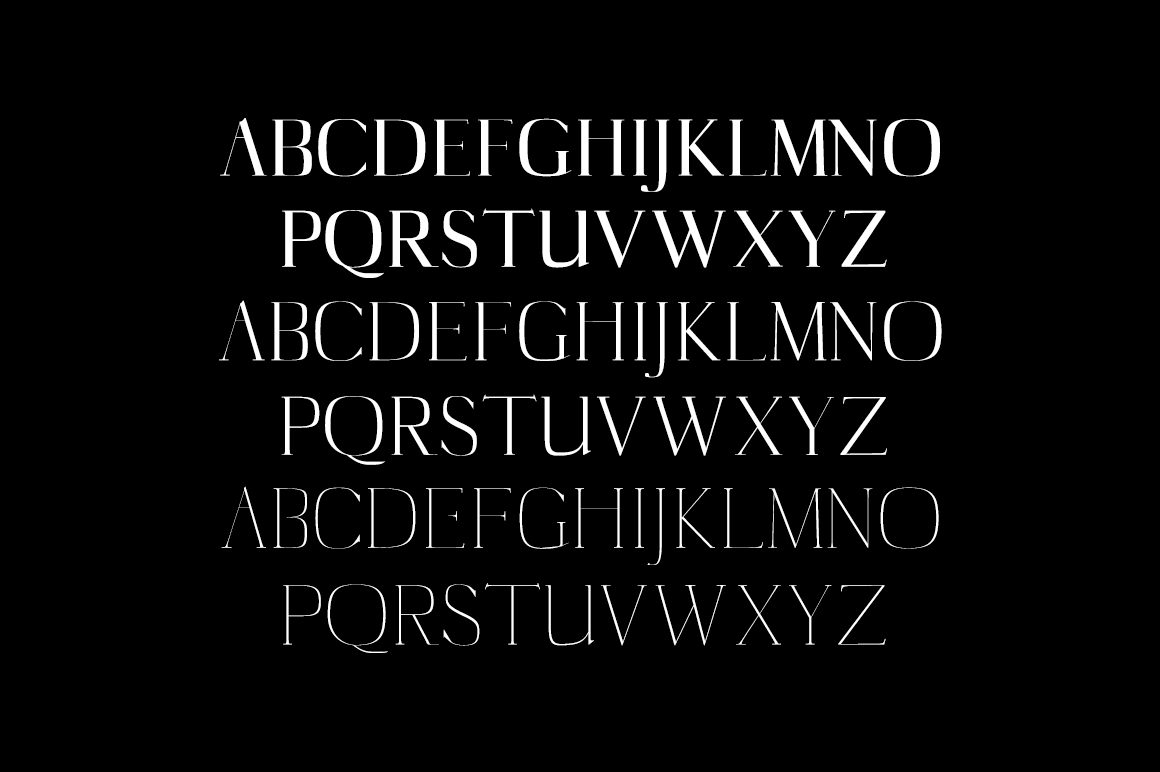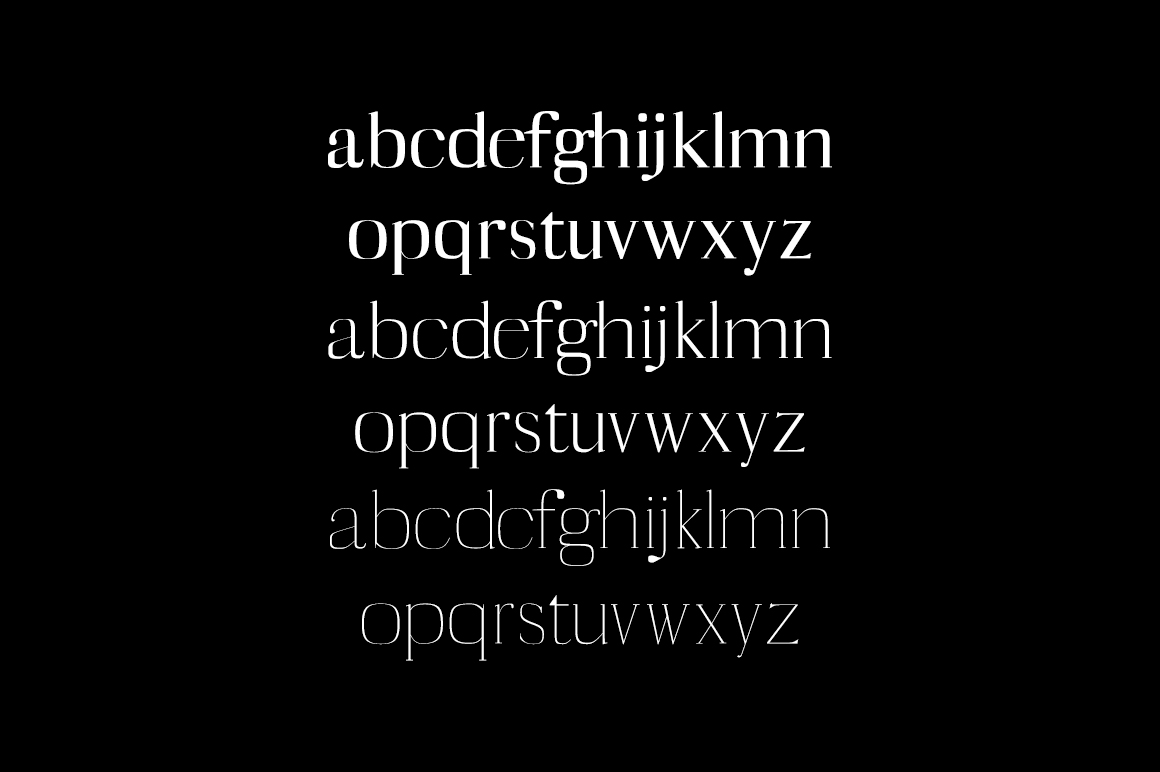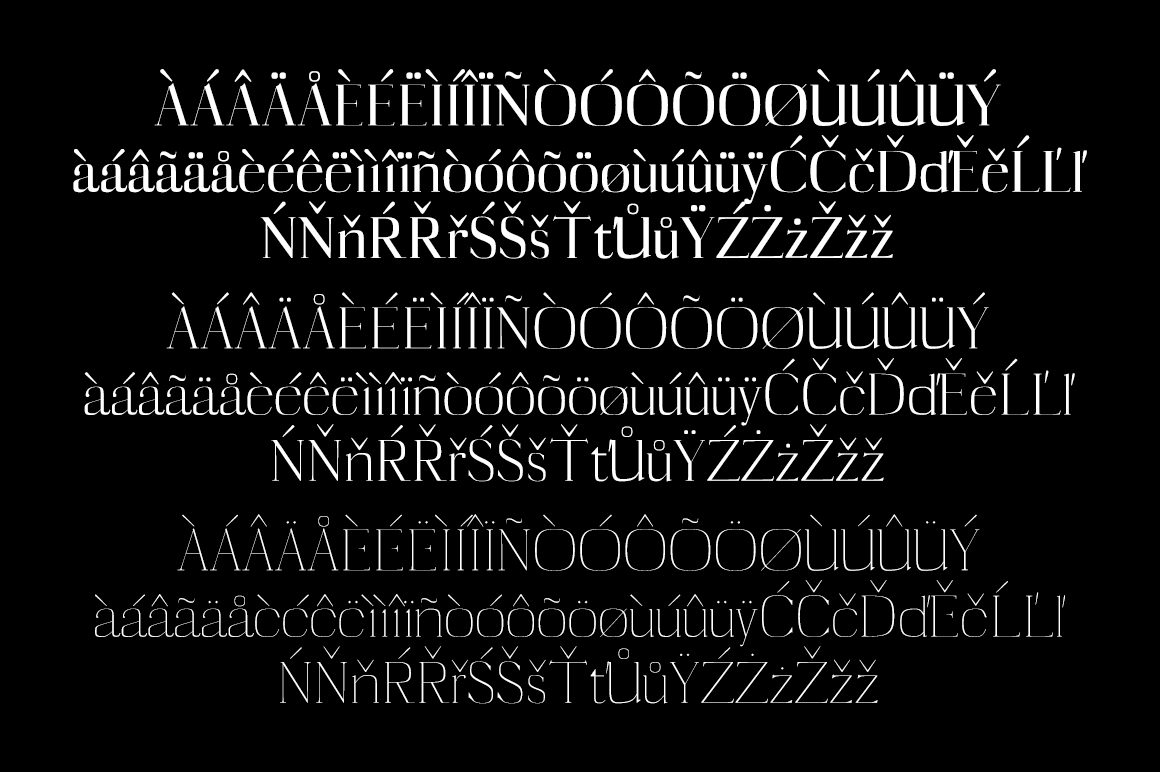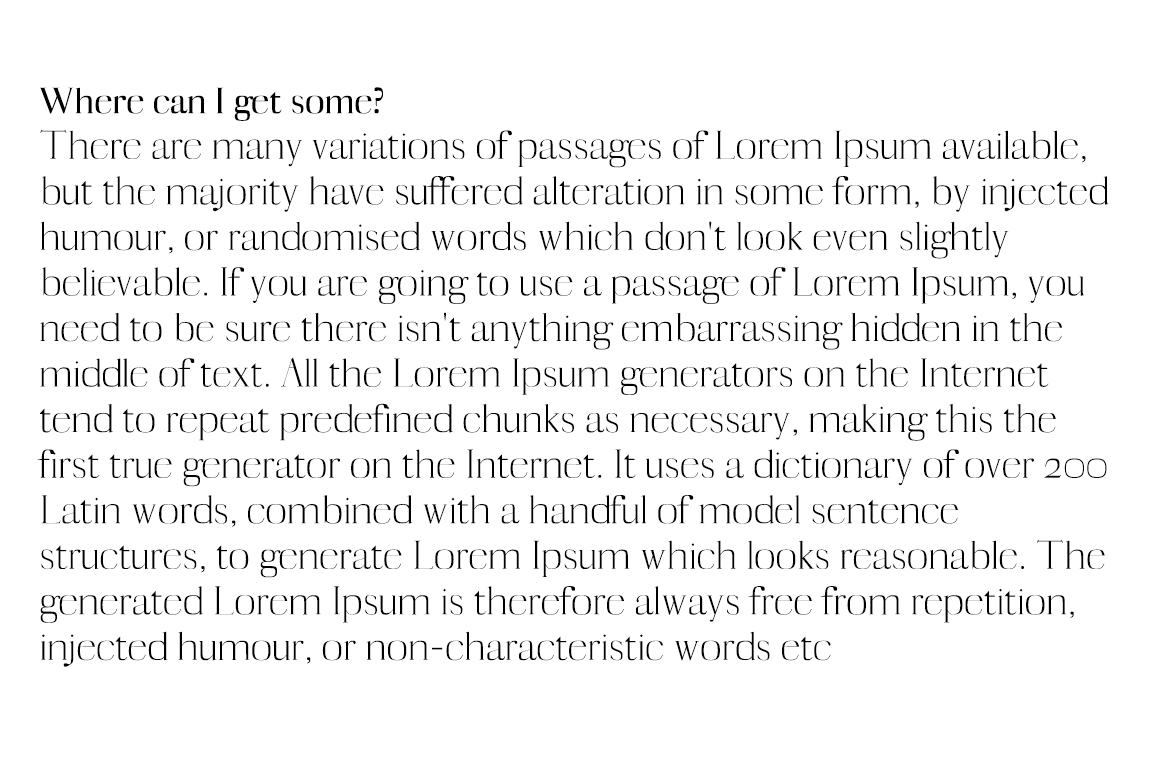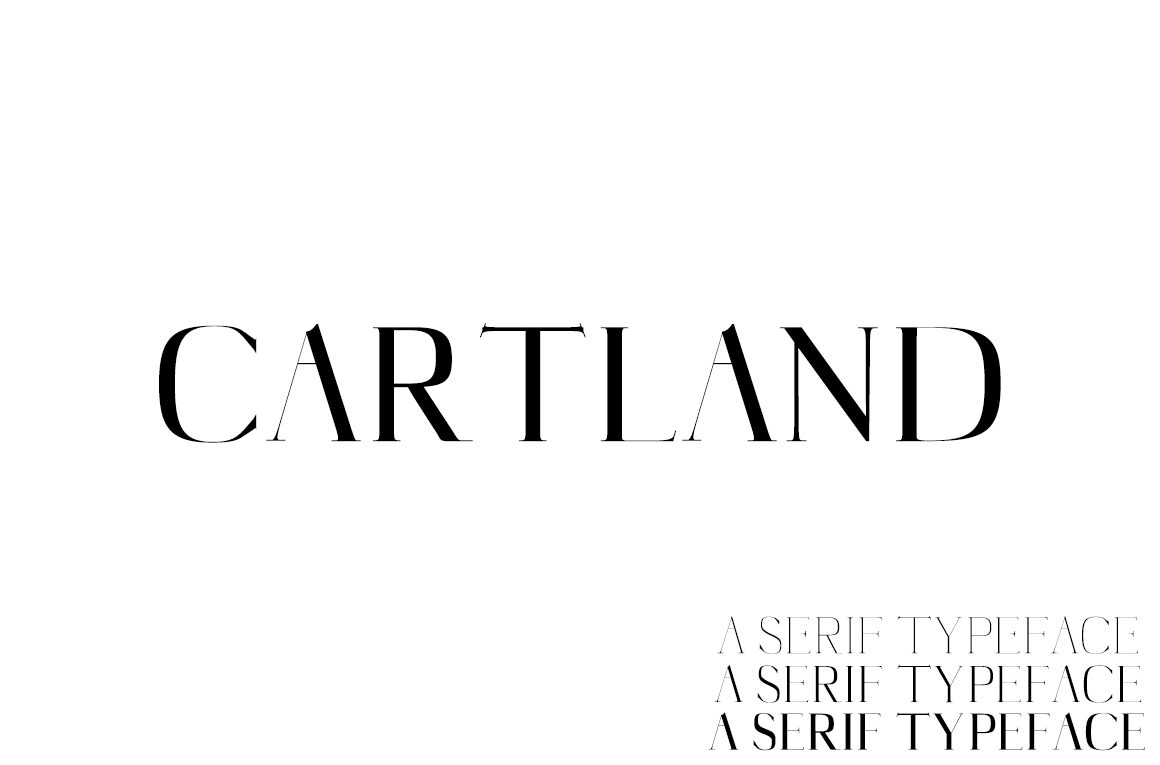
Introducing Cartland Font: Elevate Your Designs with Modern Elegance
In the world of typography, fonts play a crucial role in conveying the tone and aesthetic of a design. For designers and crafters seeking a modern yet classy look, Cartland Font is an exceptional choice. This stunning modern serif font boasts high contrast strokes in every character, making it perfect for projects that demand a touch of sophistication and contemporary flair.
The Cartland Font Advantage
Cartland is not just another serif font; it’s a masterpiece of modern typography. Its high contrast strokes give each character a unique personality, setting it apart from more traditional serif fonts. This distinctive feature allows designers to add a level of elegance and refinement to their work, making it ideal for a wide range of applications, from luxury branding to high-end packaging, and even editorial design.
Key Features of Cartland Font
- Modern Serif Design: Cartland’s sleek and modern serif design ensures that your designs look fresh and current, while still benefiting from the classic appeal of serif fonts.
- High Contrast Strokes: The high contrast between thick and thin strokes in Cartland adds a level of sophistication and elegance to your typography, making it perfect for designs that require a bit of luxury and refinement.
- Versatility: Whether you’re working on a branding project, a website, a magazine, or any other design that requires typography, Cartland offers the versatility to adapt to various styles and themes.
- Easy to Read: Despite its elegant and high-contrast design, Cartland remains highly legible, making it suitable for both headings and body text.
Use Cases for Cartland Font
Cartland’s versatility makes it suitable for a variety of design projects. Here are some of the best use cases for this beautiful font:
- Luxury Branding: Use Cartland to create a luxurious and sophisticated brand identity that stands out from the competition.
- Editorial Design: Add a touch of elegance to your magazines, newspapers, and blogs with Cartland’s refined and modern serif design.
- Web Design: Elevate your website’s typography with Cartland, providing a premium user experience that reflects the quality of your content or products.
- Packaging Design: Make your product packaging stand out with Cartland’s unique and eye-catching typography.
Cartland Font is a game-changer for designers and crafters looking to infuse their projects with a modern yet classy vibe. Its high contrast strokes and sleek serif design make it a versatile and elegant choice for a wide range of applications. By incorporating Cartland into your typography arsenal, you’ll be able to create designs that are not only visually stunning but also convey a sense of luxury and sophistication. So, why wait? Download Cartland Font today and elevate your designs to new heights of elegance and modernity.